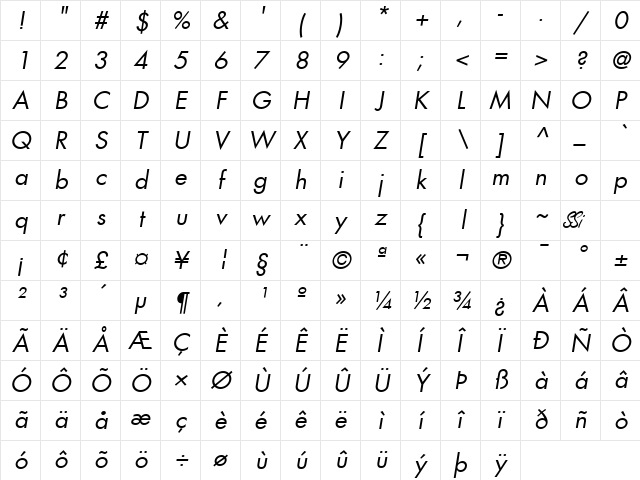
Complete Kudos Book SSi Book Italic glyph index. Displaying only characters natively supported by Kudos Book SSi Book Italic font.
Kudos Book SSi is a composed and adaptable typeface that performs quietly and consistently across a wide range of design contexts. The slanted form adds forward momentum and visual energy.